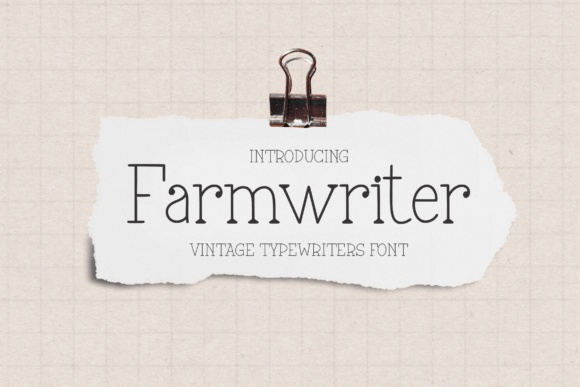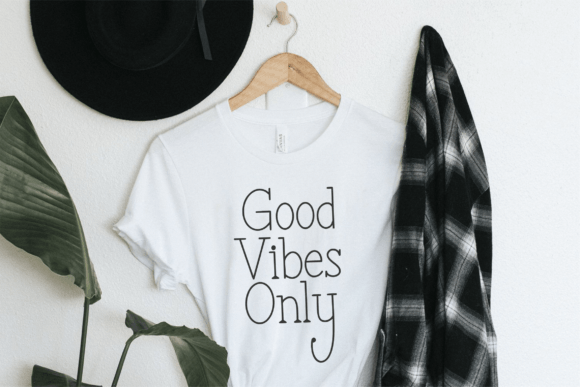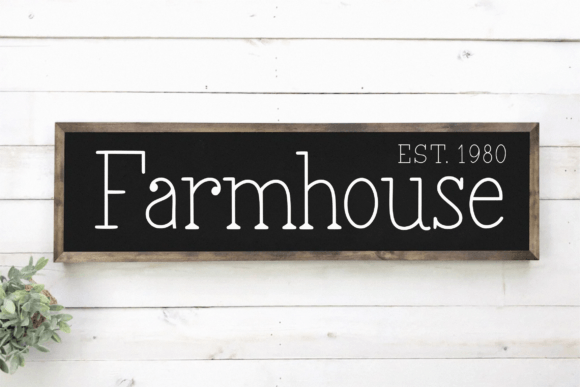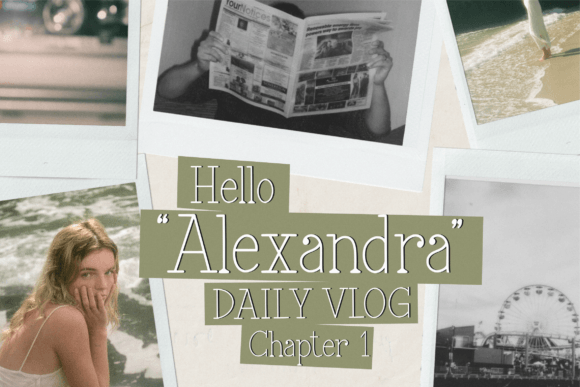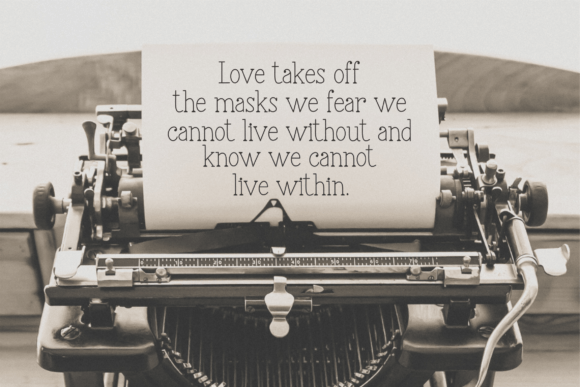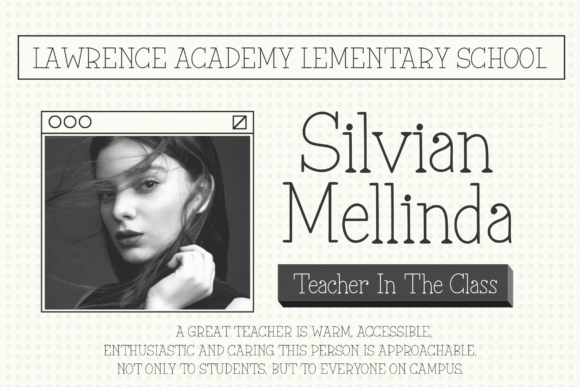
Introducing Farmwriter Font: The Ultimate Vintage-Typewriter Display Font for Carefree Designs
Are you tired of using the same old fonts in your designs? Do you want to add a touch of whimsy and playfulness to your creative projects? Look no further than Farmwriter Font, a fun vintage-typewriter display font that radiates a carefree spirit. With its friendly letterforms and approachable style, Farmwriter brings a lighthearted charm to your designs that’s perfect for projects that demand a relaxed and joyful aesthetic.
The Characteristics of Farmwriter Font
Farmwriter Font is a unique and charming font that’s inspired by the classic typewriters of the past. Its letterforms are designed to evoke a sense of nostalgia and playfulness, with a friendly and approachable style that’s sure to delight. Here are some of the key characteristics that make Farmwriter Font stand out:
- Vintage-typewriter feel: Farmwriter Font has a distinct vintage-typewriter feel that’s perfect for creating designs that look like they were typed on an old typewriter.
- Carefree spirit: The font radiates a carefree spirit that’s ideal for projects that demand a relaxed and joyful aesthetic.
- Friendly letterforms: The letterforms in Farmwriter Font are designed to be friendly and approachable, making it perfect for designs that need to convey a sense of warmth and personality.
- Lighthearted charm: The font has a lighthearted charm that’s sure to add a touch of whimsy and playfulness to your designs.
Uses for Farmwriter Font
Farmwriter Font is a versatile font that can be used for a wide range of design projects. Here are some ideas for using Farmwriter Font:
- Branding and logos: Use Farmwriter Font to create a unique and memorable logo for your brand or business.
- Posters and flyers: Add a touch of whimsy and playfulness to your posters and flyers with Farmwriter Font.
- Social media graphics: Use Farmwriter Font to create eye-catching social media graphics that are sure to stand out.
- Packaging design: Add a personal touch to your packaging design with Farmwriter Font.
- Invitations and cards: Use Farmwriter Font to create unique and charming invitations and cards for special occasions.
Why Choose Farmwriter Font?
There are many fonts to choose from, but Farmwriter Font stands out from the crowd. Here are some reasons why you should choose Farmwriter Font for your next design project:
- Unique and distinctive: Farmwriter Font is a unique and distinctive font that’s sure to make your designs stand out.
- Easy to read: Despite its vintage-typewriter feel, Farmwriter Font is easy to read and understand.
- Versatile: Farmwriter Font can be used for a wide range of design projects, from branding and logos to posters and flyers.
- Fun and playful: Farmwriter Font adds a touch of whimsy and playfulness to your designs, making it perfect for projects that demand a relaxed and joyful aesthetic.
Tips for Using Farmwriter Font
Here are some tips for using Farmwriter Font in your design projects:
- Use it sparingly: Farmwriter Font is a bold and eye-catching font, so use it sparingly to avoid overwhelming your design.
- Pair it with other fonts: Farmwriter Font pairs well with other fonts, so experiment with different combinations to find the perfect look for your design.
- Experiment with colors: Farmwriter Font looks great in a variety of colors, so experiment with different colors to find the perfect look for your design.
- Have fun: Most importantly, have fun with Farmwriter Font! It’s a playful and whimsical font that’s perfect for adding a touch of personality to your designs.
In conclusion, Farmwriter Font is a unique and charming font that’s perfect for designers and crafters who want to add a touch of whimsy and playfulness to their designs. With its friendly letterforms and approachable style, Farmwriter Font brings a lighthearted charm to your designs that’s sure to delight. So why not give Farmwriter Font a try and see how it can add a carefree spirit to your creative expressions?